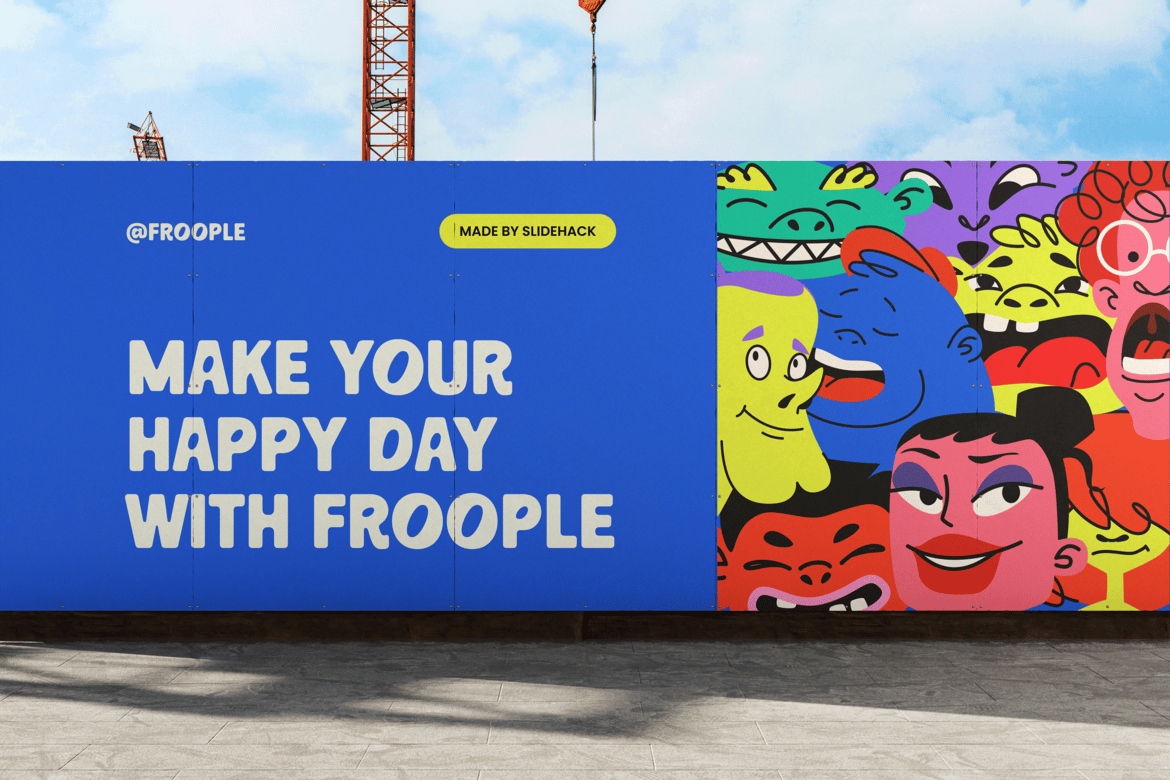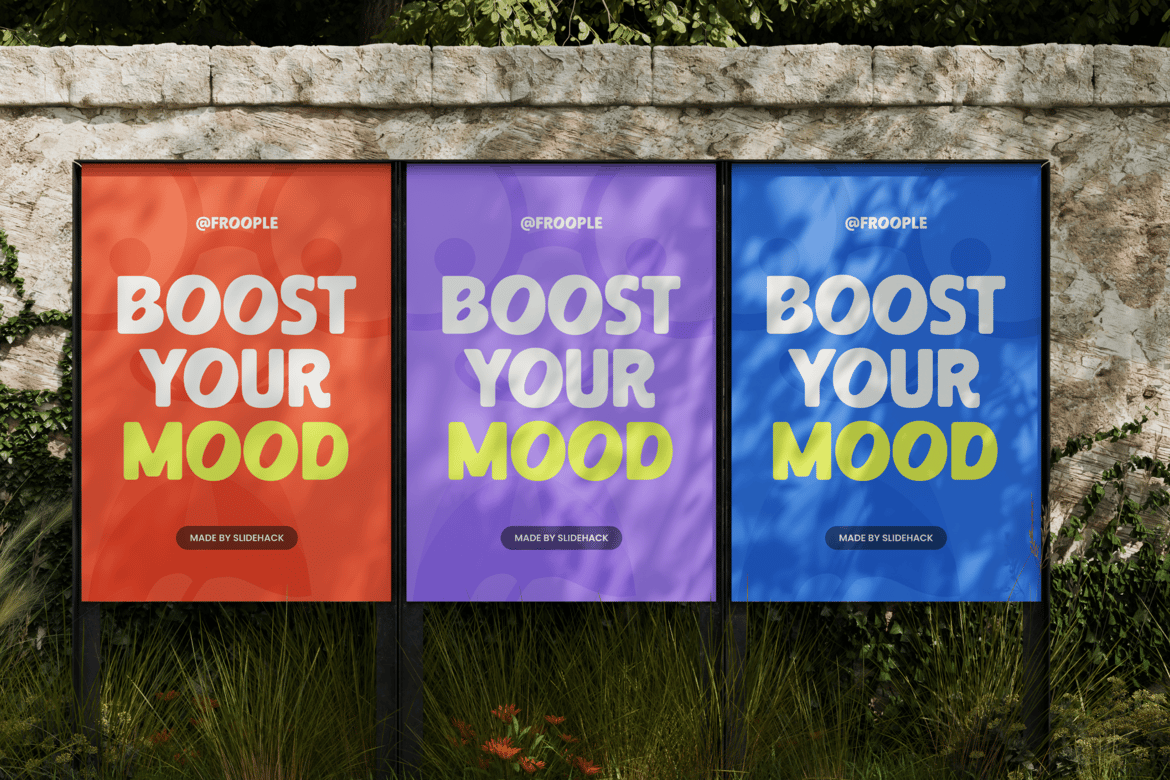
Froople – Playful Display Font
Froople – Playful Display Font is a versatile typeface ideal for various projects, including N/A, logos, branding, posters, blog headers, advertisements. The free version includes a full set of uppercase and lowercase letters, available in TTF, OTF format.